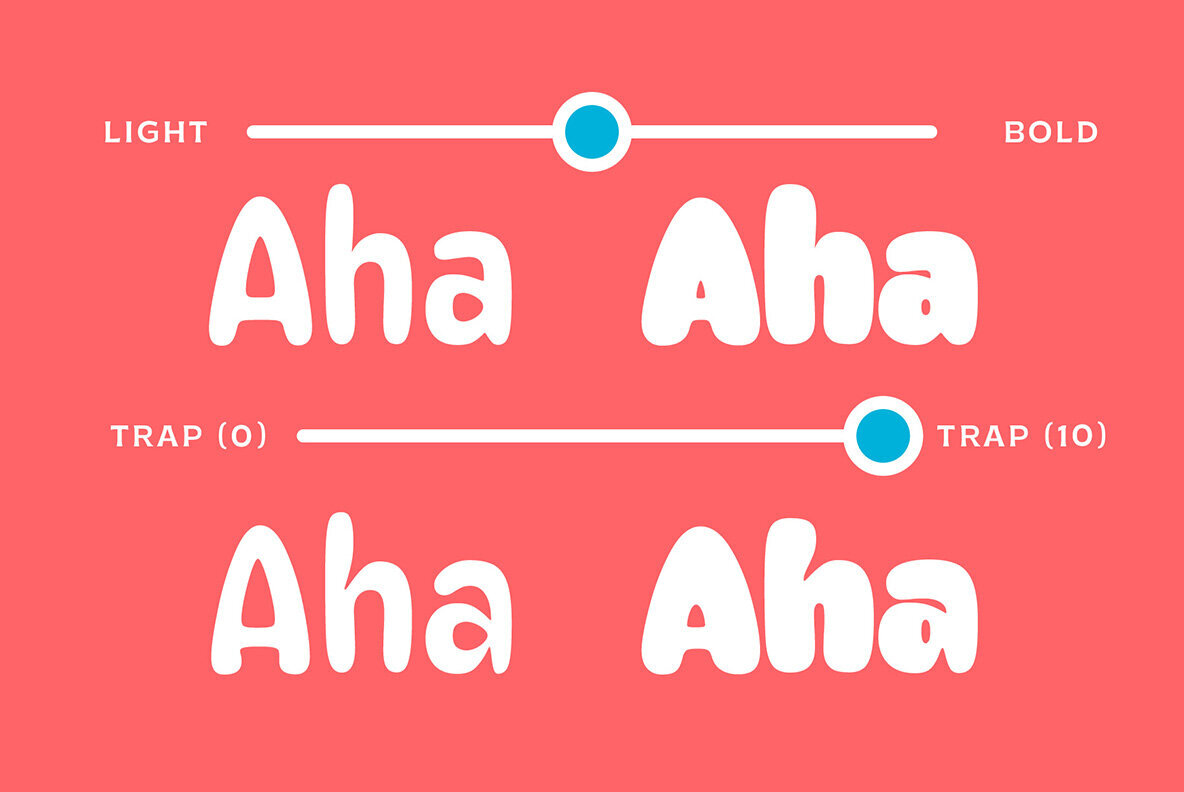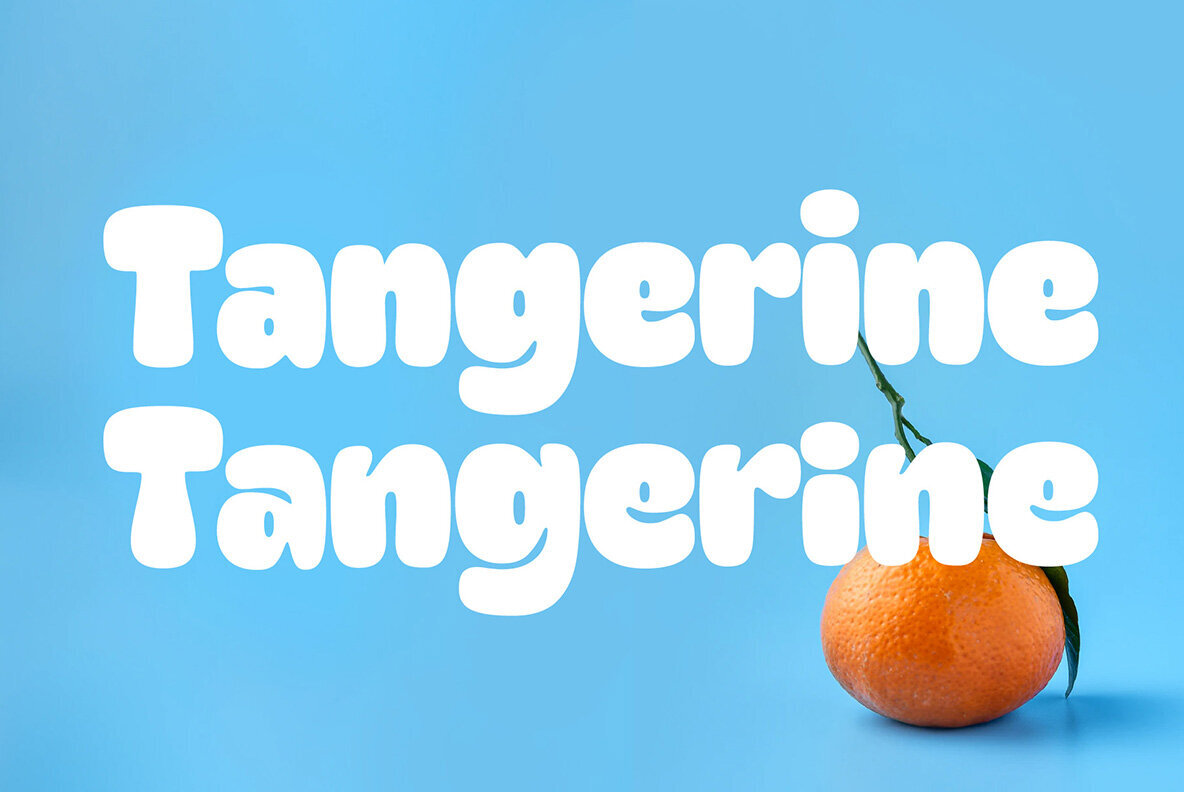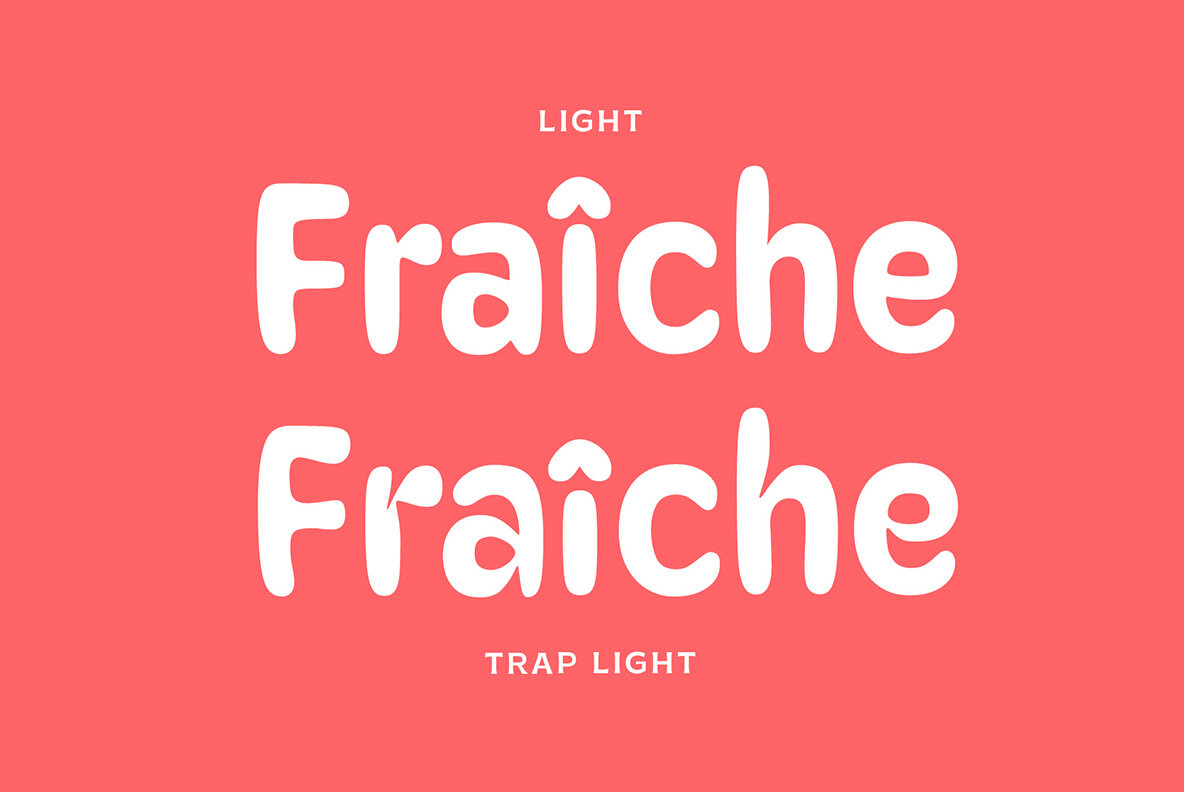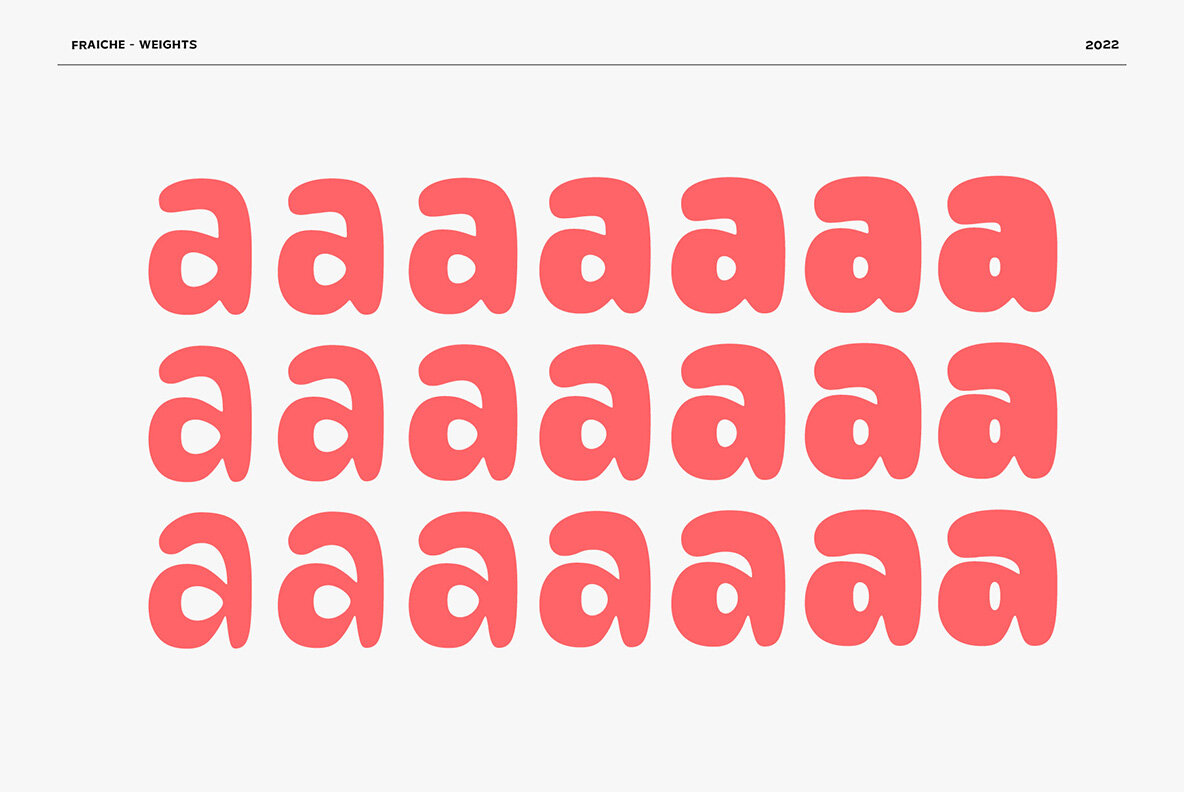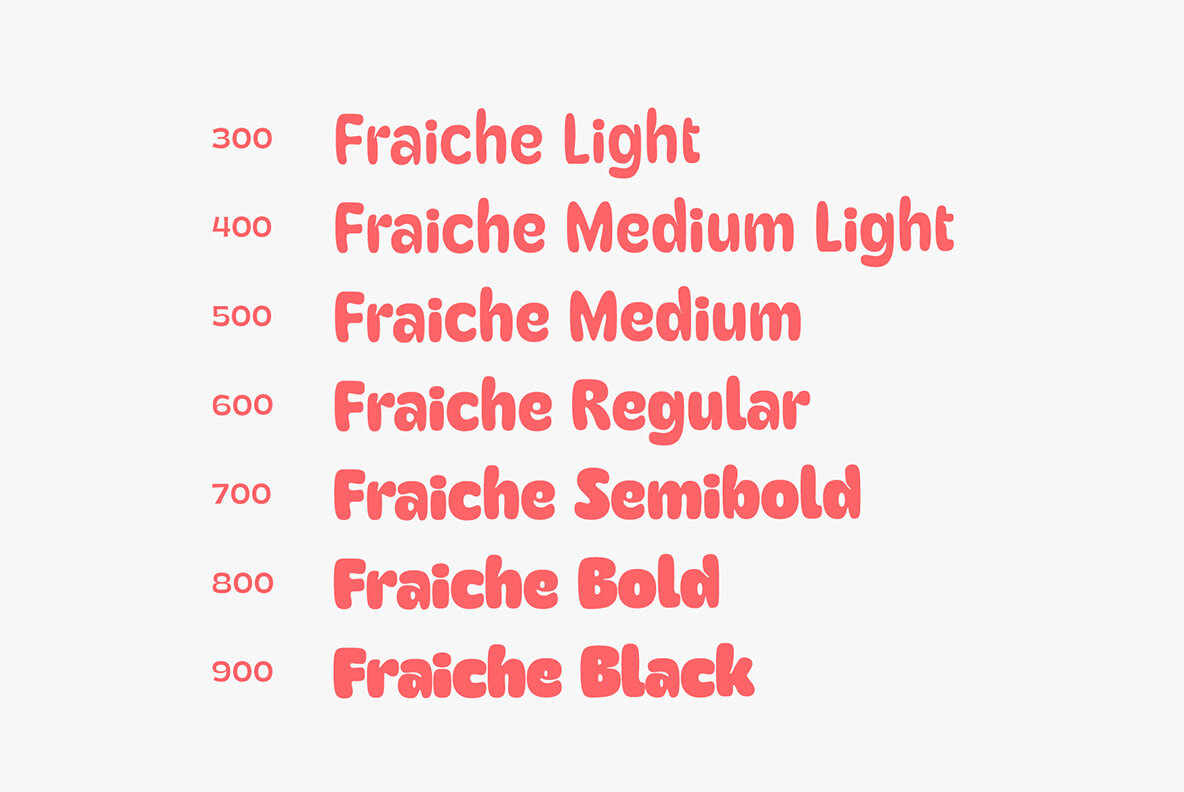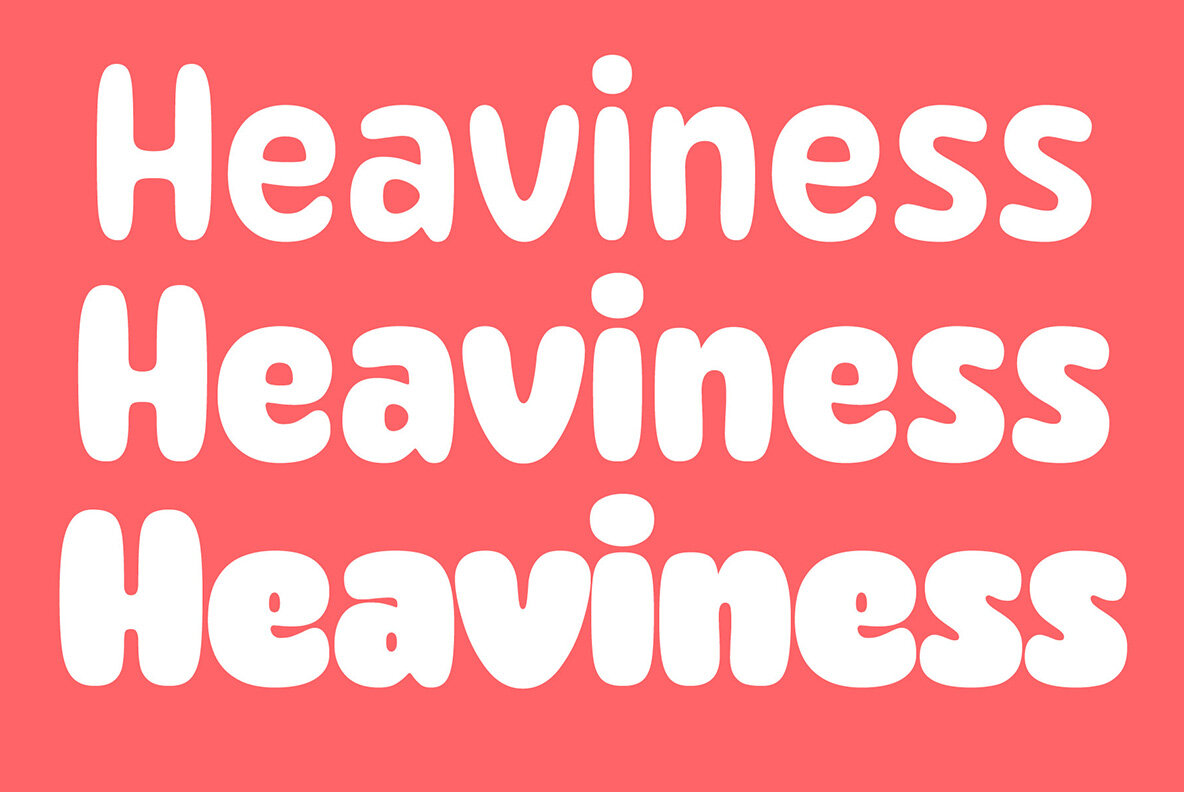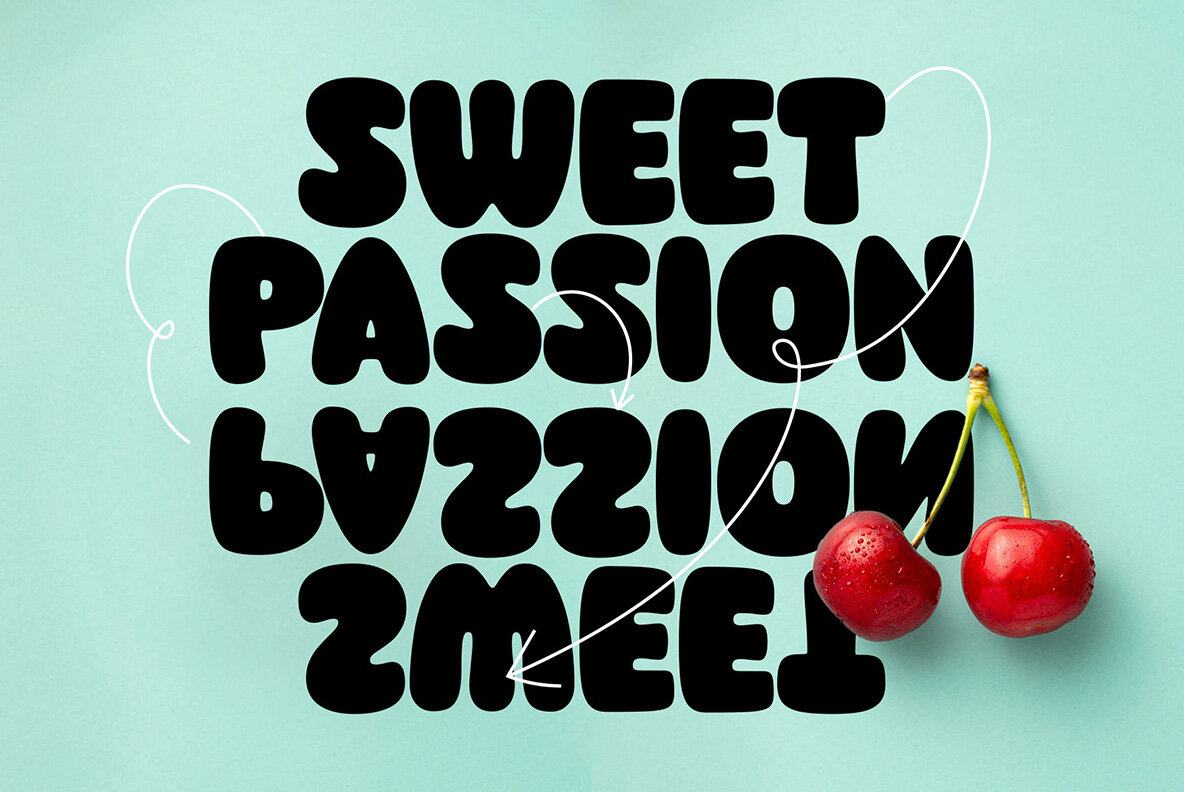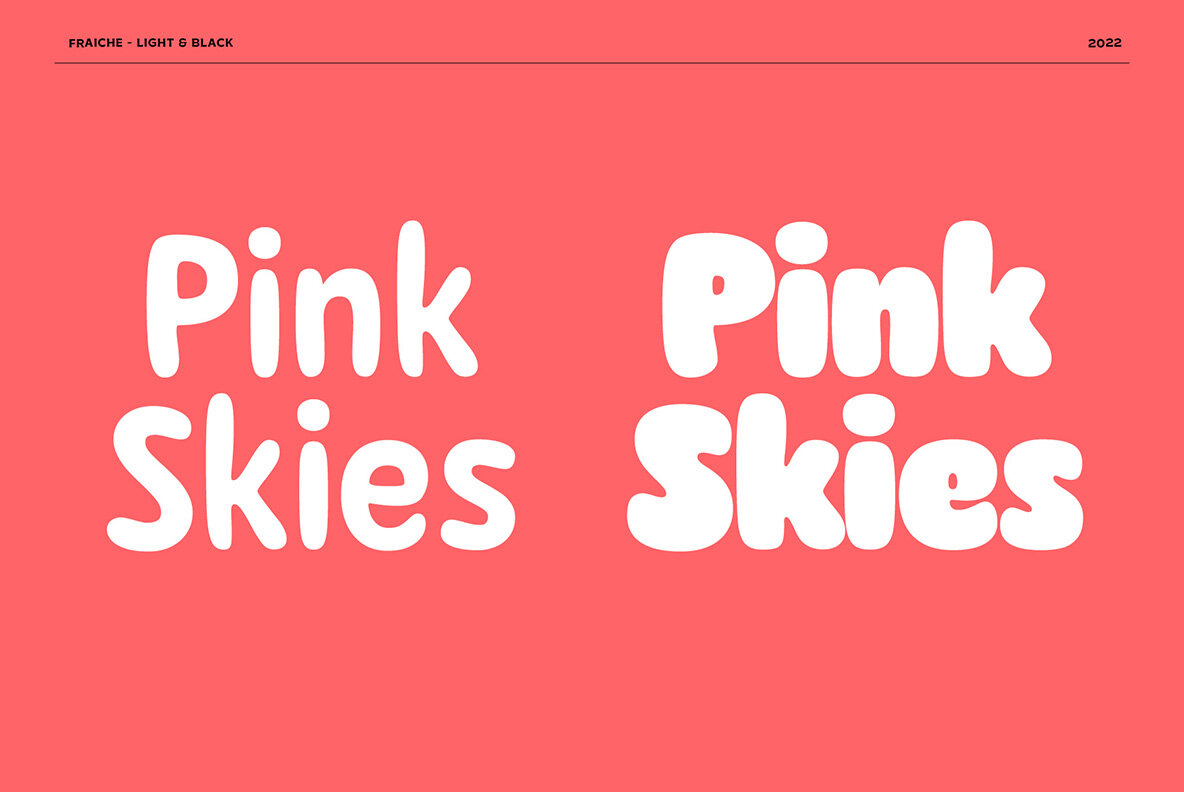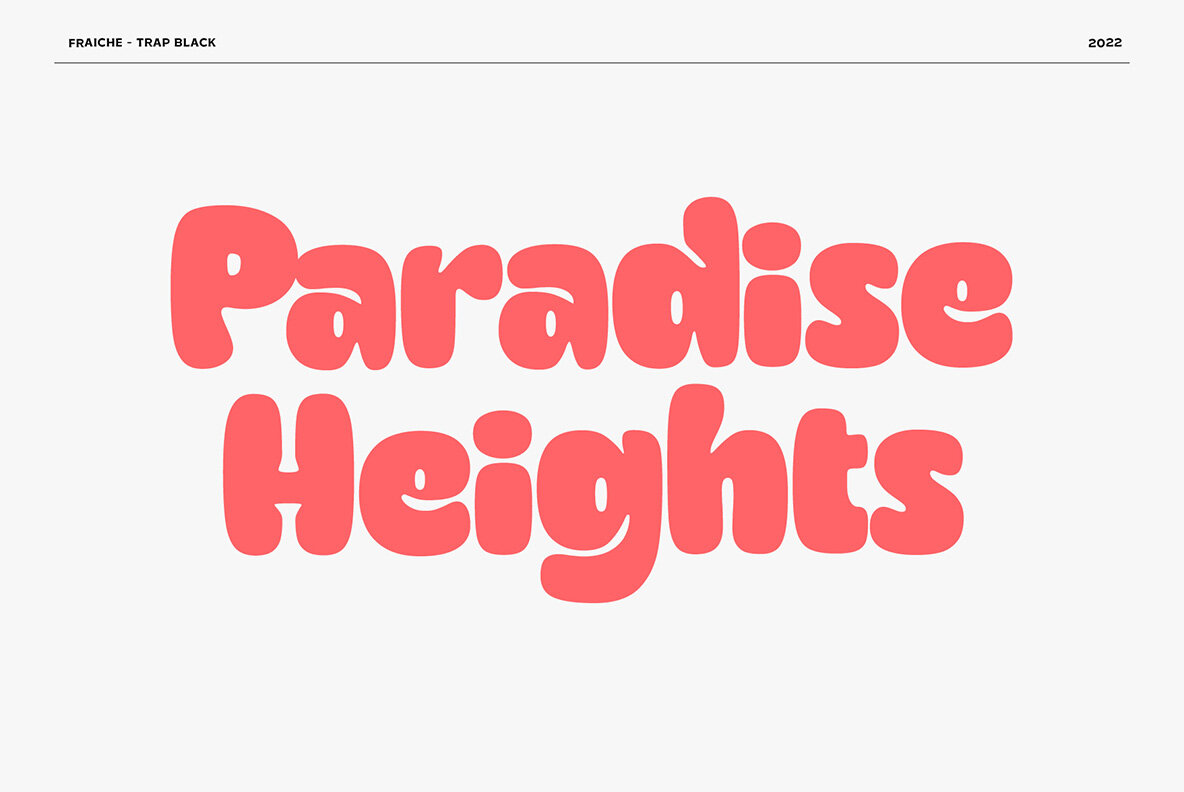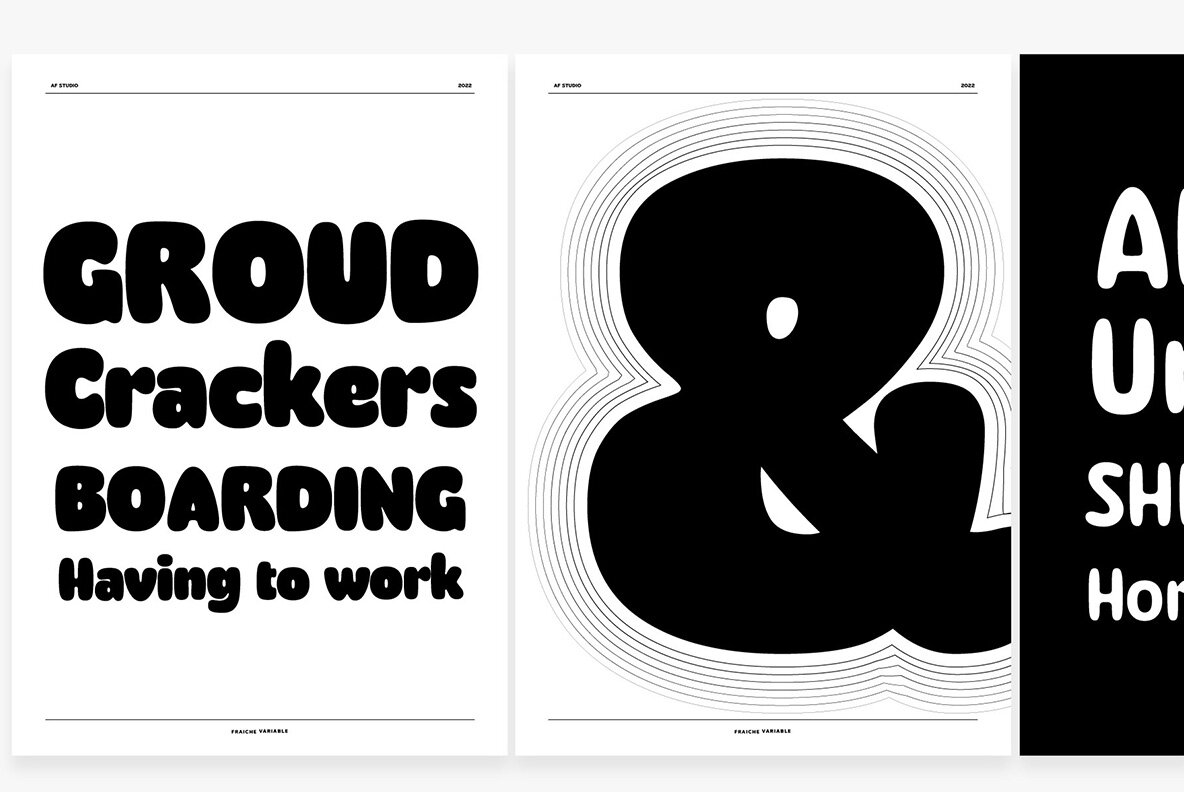
Fraiche Font
If you're looking for an adorable, soft, and rounded typeface, Fraiche Font is the perfect choice!
Available in both regular and an ink trap style, it provides the perfect blend of form and function. The regular style is perfect for those who want the correct anatomy of the font, while the ink trap style adds more extreme spaces on the ink traps.
Either way, you'll be sure to make a creative statement with this stylish and versatile font.